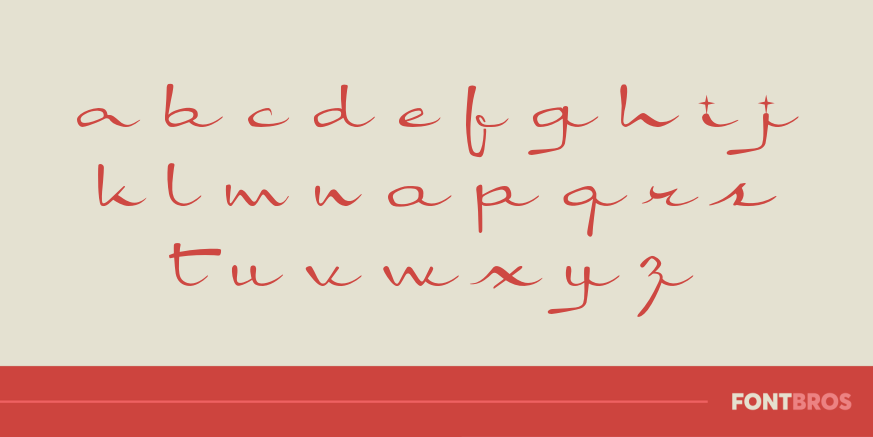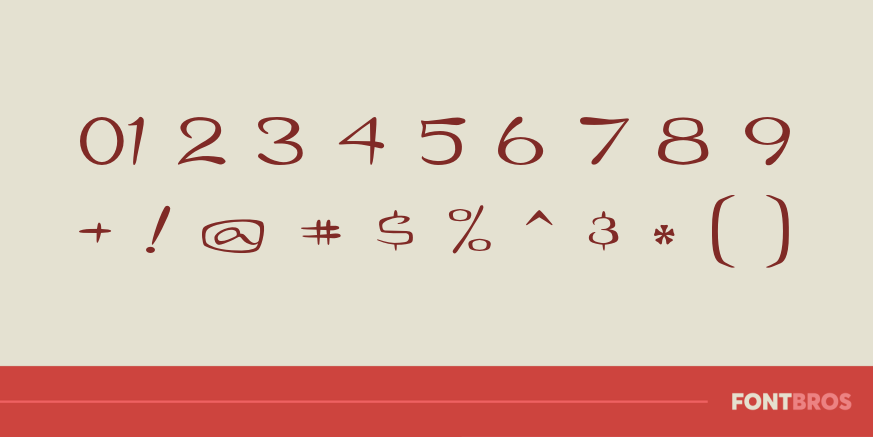
Kitchenette
Font Family by Font Diner
Enjoy the speed and modern conveniences of Kitchenette, a fine connecting handwritten retro script sure to please any smart homemaker!